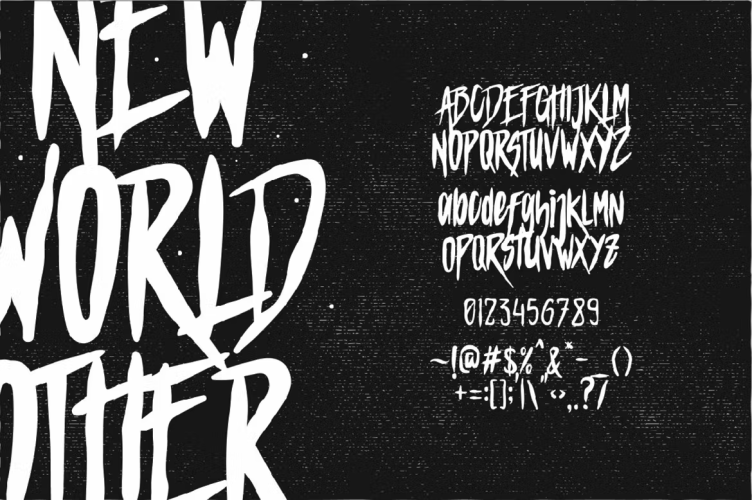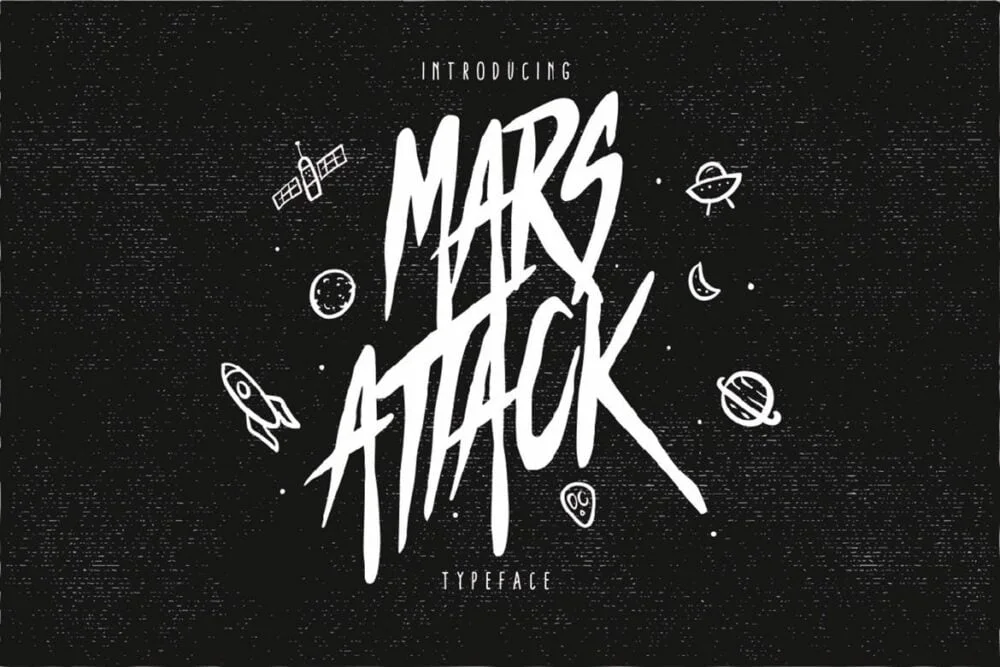
Mars Attack Font
Mars Attack Font can make it easier to convey the message in your design. Use for awesome display, labeling, clothing, movie screen, poster, movie title, gigs, album covers, logos, and much more.
Where Mars Attack Font works best
Versatile projects
Mars Attack Font works across print and screen, from headlines to short paragraphs.
What is Mars Attack Font good for?
Mars Attack Font is a Typeface tagged Branding, Display, Headlines, Poster. It works well for headlines, logos, posters, social media graphics and branding projects that need a distinctive typeface look.